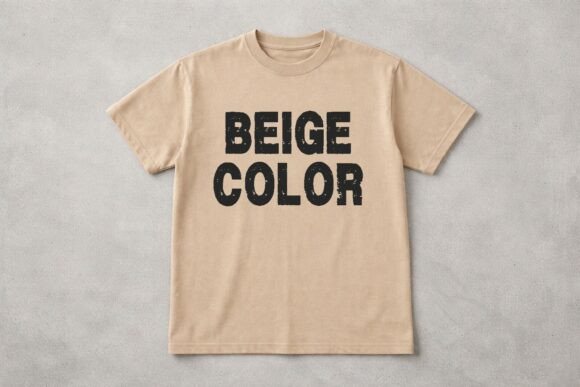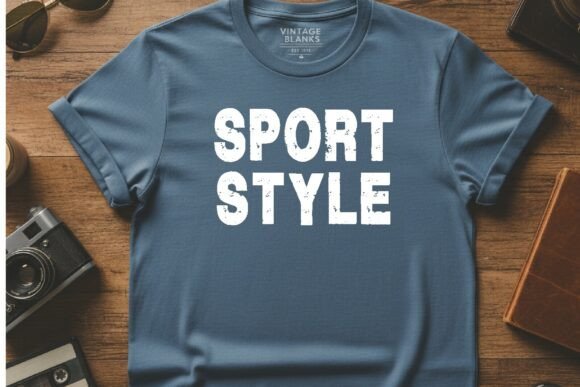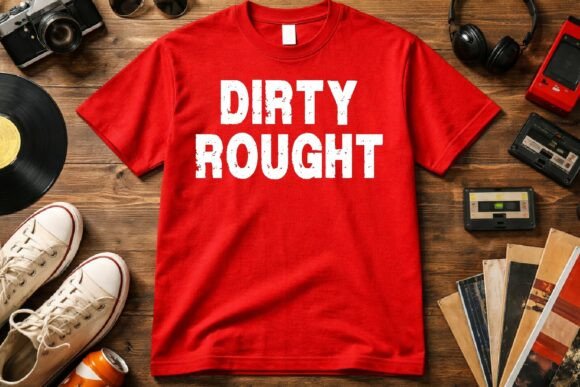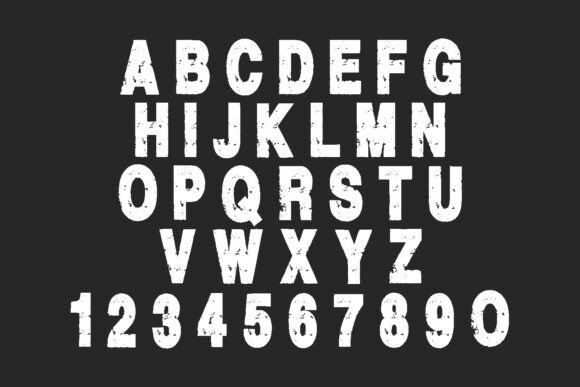
Introducing Dirty Rought: The Ultimate Bold Vintage Distressed Display Font
Are you tired of using the same old fonts in your design projects? Do you want to add a touch of authenticity and ruggedness to your posters, branding, logos, packaging, t-shirt designs, and retro-themed graphics? Look no further than Dirty Rought, the bold vintage distressed display font that’s taking the design world by storm.
The Raw, Vintage Character of Dirty Rought
Dirty Rought is a bold, distressed display font that features rough textures and worn letterforms, giving it an authentic retro look that’s hard to ignore. The gritty details of this font add a strong and rugged personality, making it perfect for designers who want to create eye-catching and memorable designs. Whether you’re working on a modern or classic design project, Dirty Rought is the perfect choice for adding a raw, vintage character that stands out from the crowd.
Key Features of Dirty Rought
- Bold and Distressed: Dirty Rought features bold, distressed letterforms that give it a rugged and worn look.
- Rough Textures: The font features rough textures that add to its authentic retro look.
- Worn Letterforms: The worn letterforms of Dirty Rought give it a unique, hand-crafted feel.
- High-Quality Design: Dirty Rought is designed with high-quality craftsmanship, ensuring that it looks great in any design project.
Dirty Rought is a versatile font that’s perfect for a variety of design projects, including:
- Posters: Add a bold, eye-catching headline to your poster with Dirty Rought.
- Branding: Use Dirty Rought to create a memorable brand identity that’s both rugged and authentic.
- Logos: Create a logo that stands out with Dirty Rought’s bold, distressed letterforms.
- Packaging: Add a touch of vintage charm to your packaging with Dirty Rought.
- T-Shirt Designs: Create a unique and eye-catching t-shirt design with Dirty Rought.
- Retro-Themed Graphics: Use Dirty Rought to create retro-themed graphics that are both authentic and memorable.
Why Choose Dirty Rought?
There are many fonts available that claim to offer a vintage or distressed look, but Dirty Rought stands out from the crowd. Here are just a few reasons why:
- Unique Design: Dirty Rought features a unique design that’s both bold and authentic.
- High-Quality Craftsmanship: The font is designed with high-quality craftsmanship, ensuring that it looks great in any design project.
- Versatility: Dirty Rought is a versatile font that’s perfect for a variety of design projects.
If you’re looking for a bold, vintage distressed display font that adds a raw, authentic character to your design projects, look no further than Dirty Rought. With its rough textures, worn letterforms, and gritty details, Dirty Rought is the perfect choice for designers who want to create eye-catching and memorable designs. Whether you’re working on a modern or classic design project, Dirty Rought is the perfect choice for adding a touch of vintage charm.